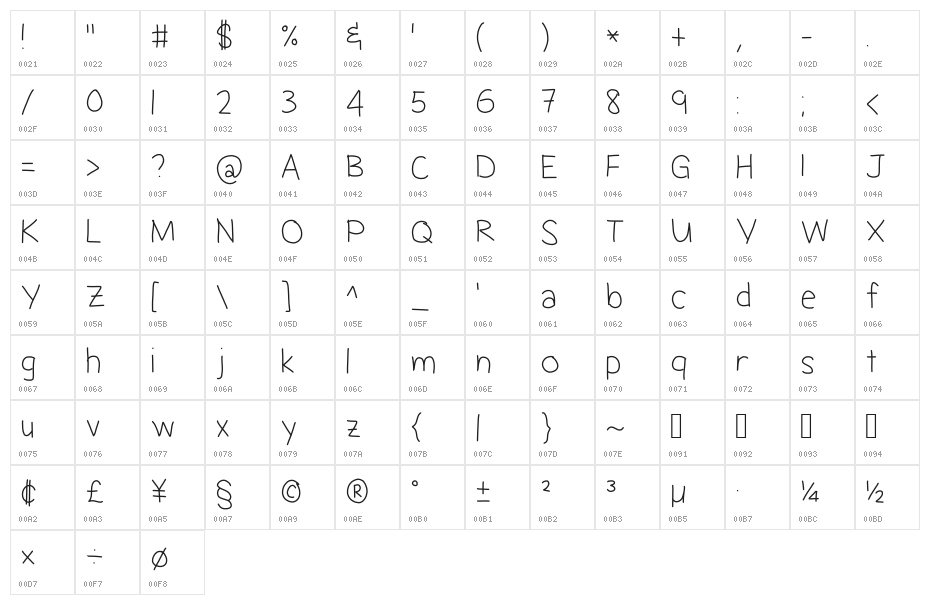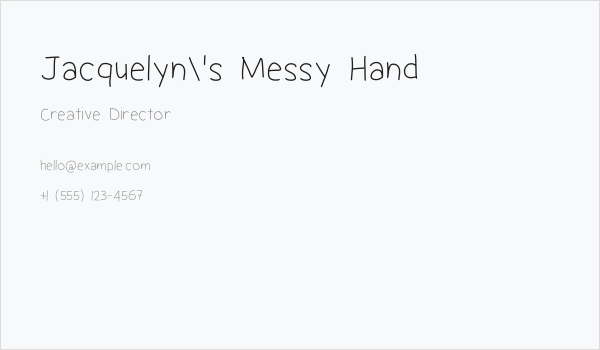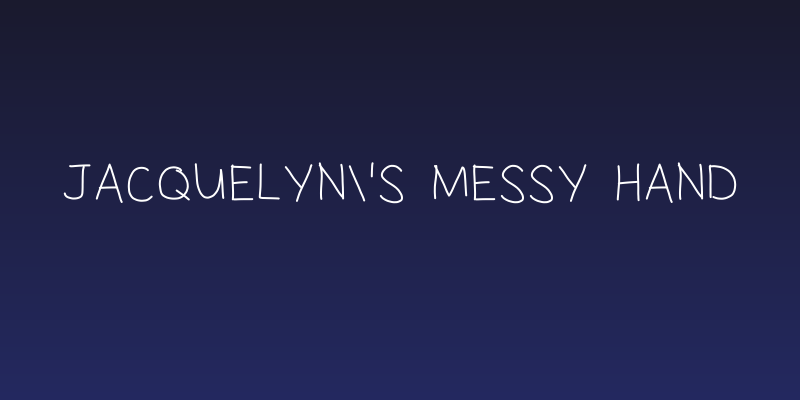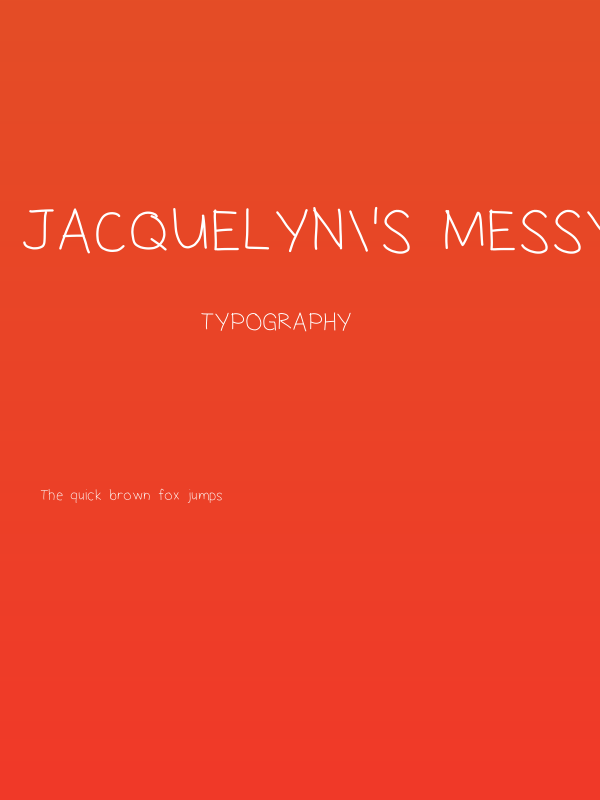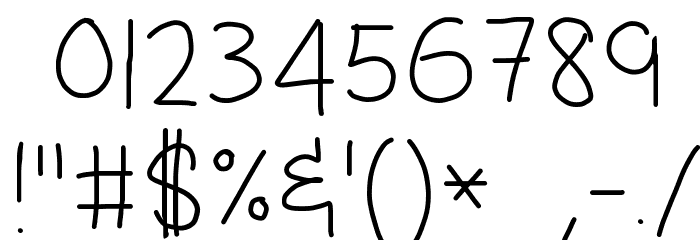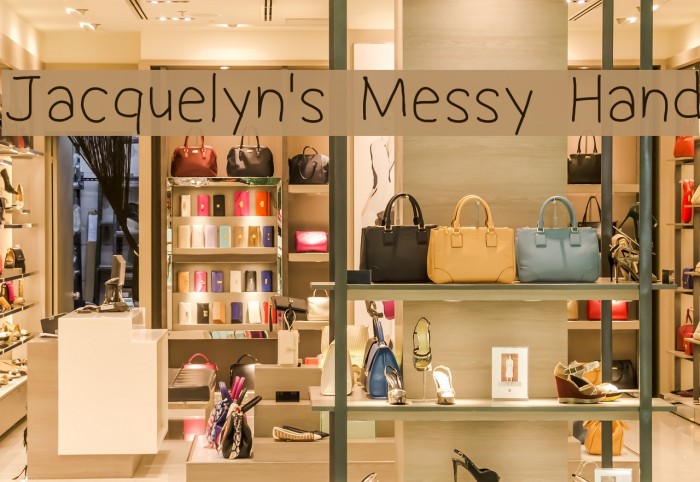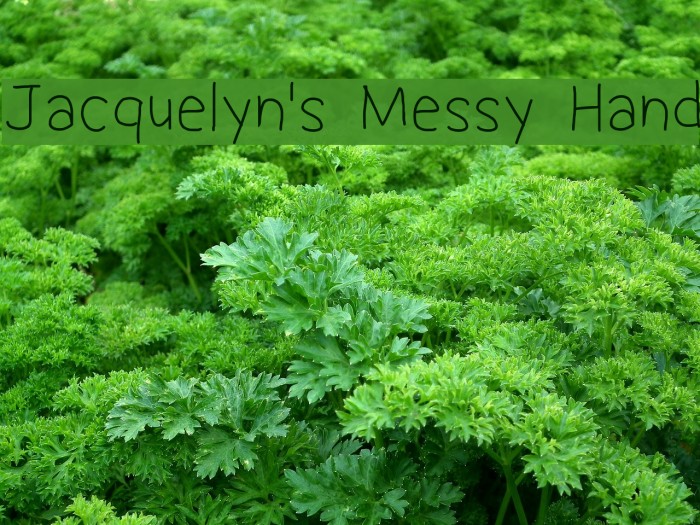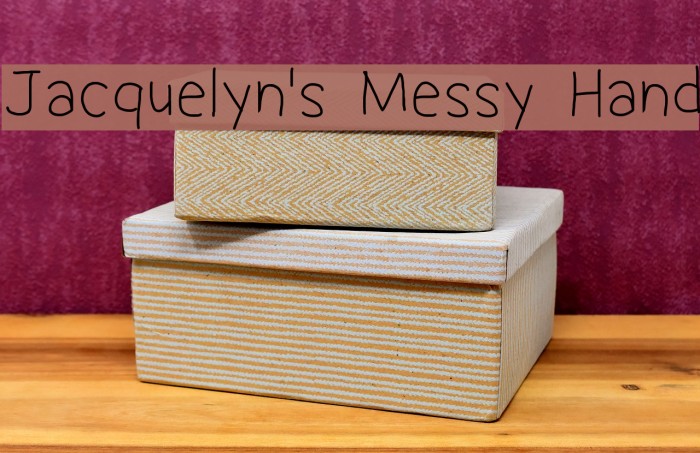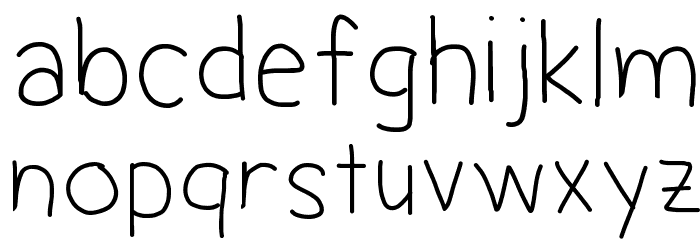
Jacquelyn's Messy Hand Font
Jacquelyn's Messy Hand Description
This font exudes a playful and informal vibe, characterized by its handwritten style that mimics the natural flow of casual penmanship. The letters are slightly uneven, adding to its charm and authenticity. The strokes are consistent in thickness, providing a uniform appearance despite the whimsical nature of the design. The characters are well-spaced, ensuring readability while maintaining the font's relaxed aesthetic. This font is perfect for projects that require a personal touch, such as greeting cards, invitations, or creative branding materials.
| Proposed Projects | Ideal for greeting cards, invitations, personal branding, and creative projects. |